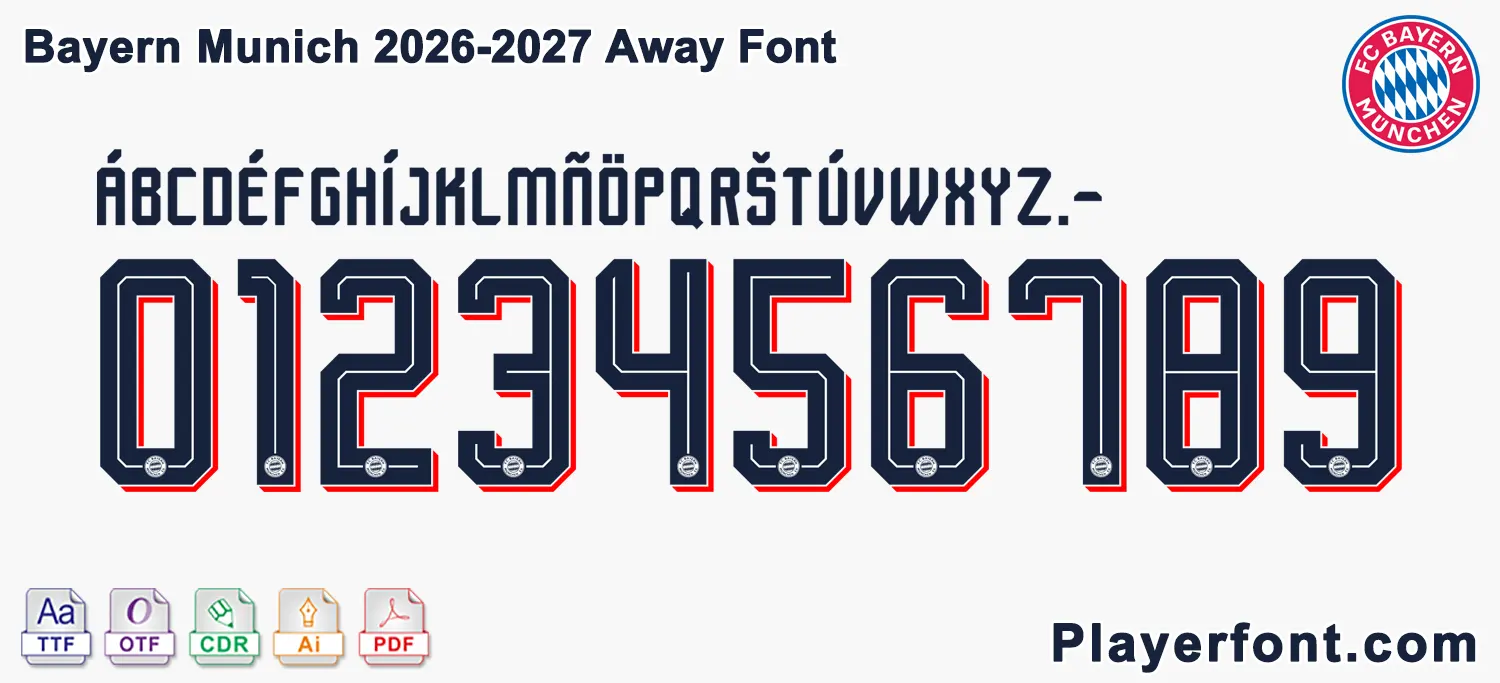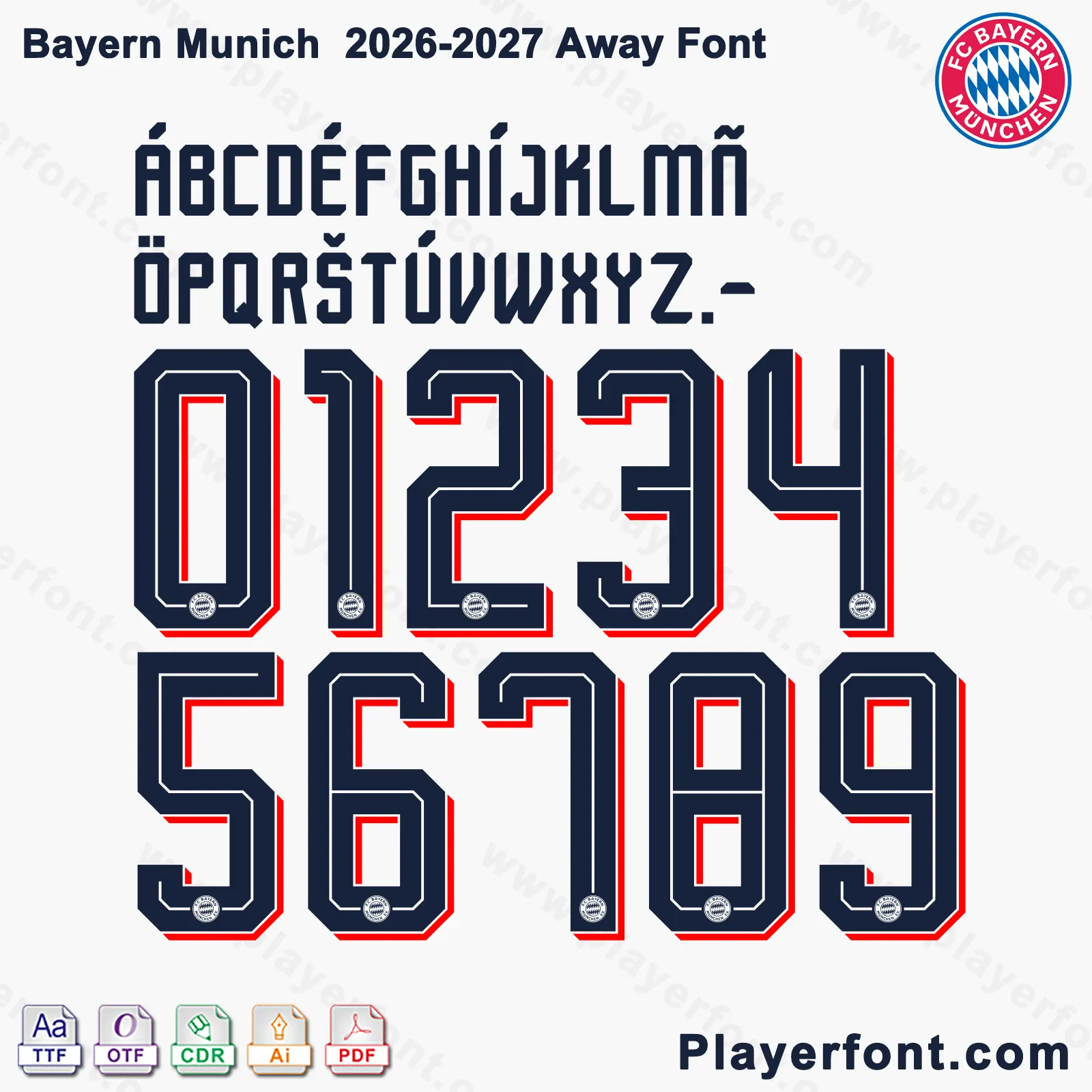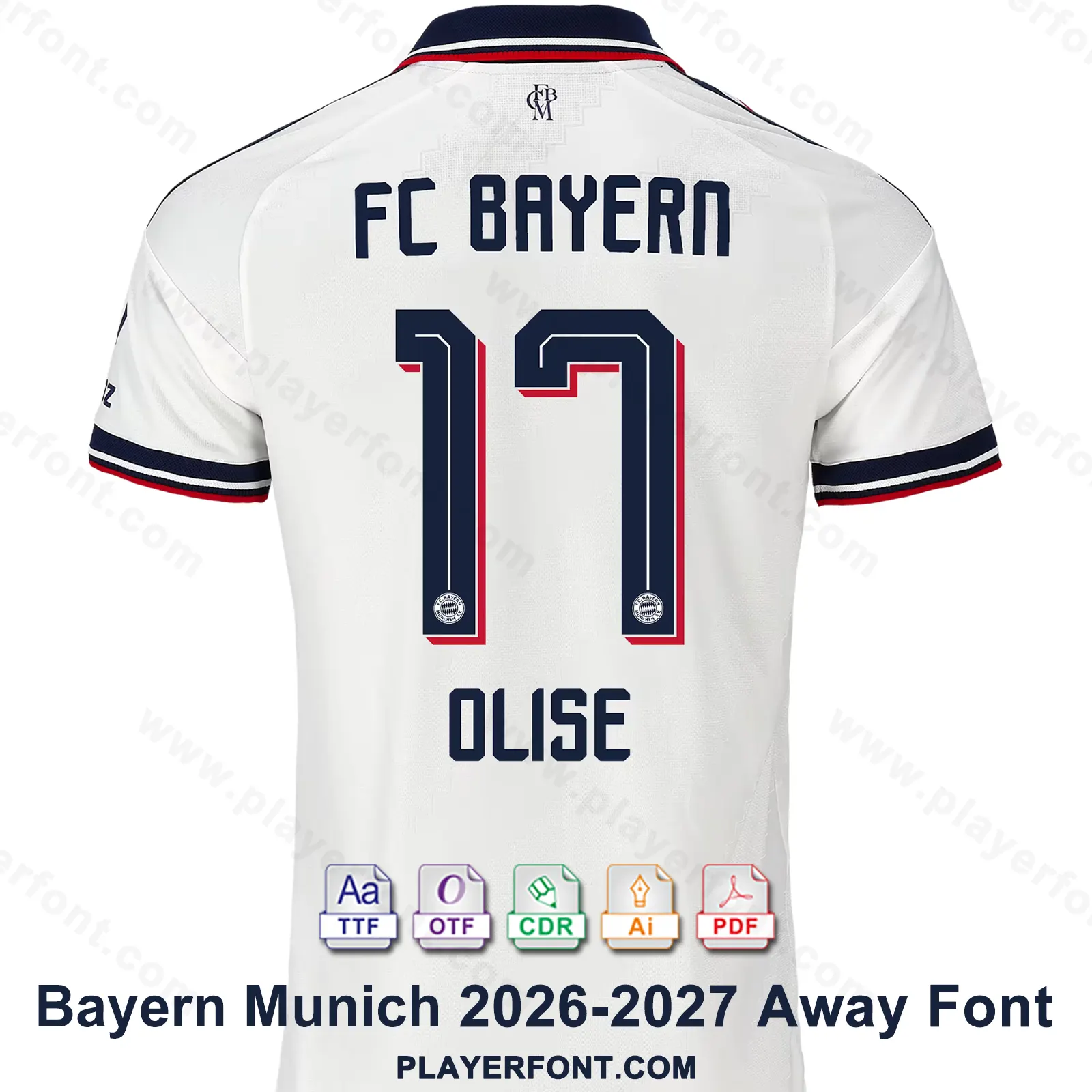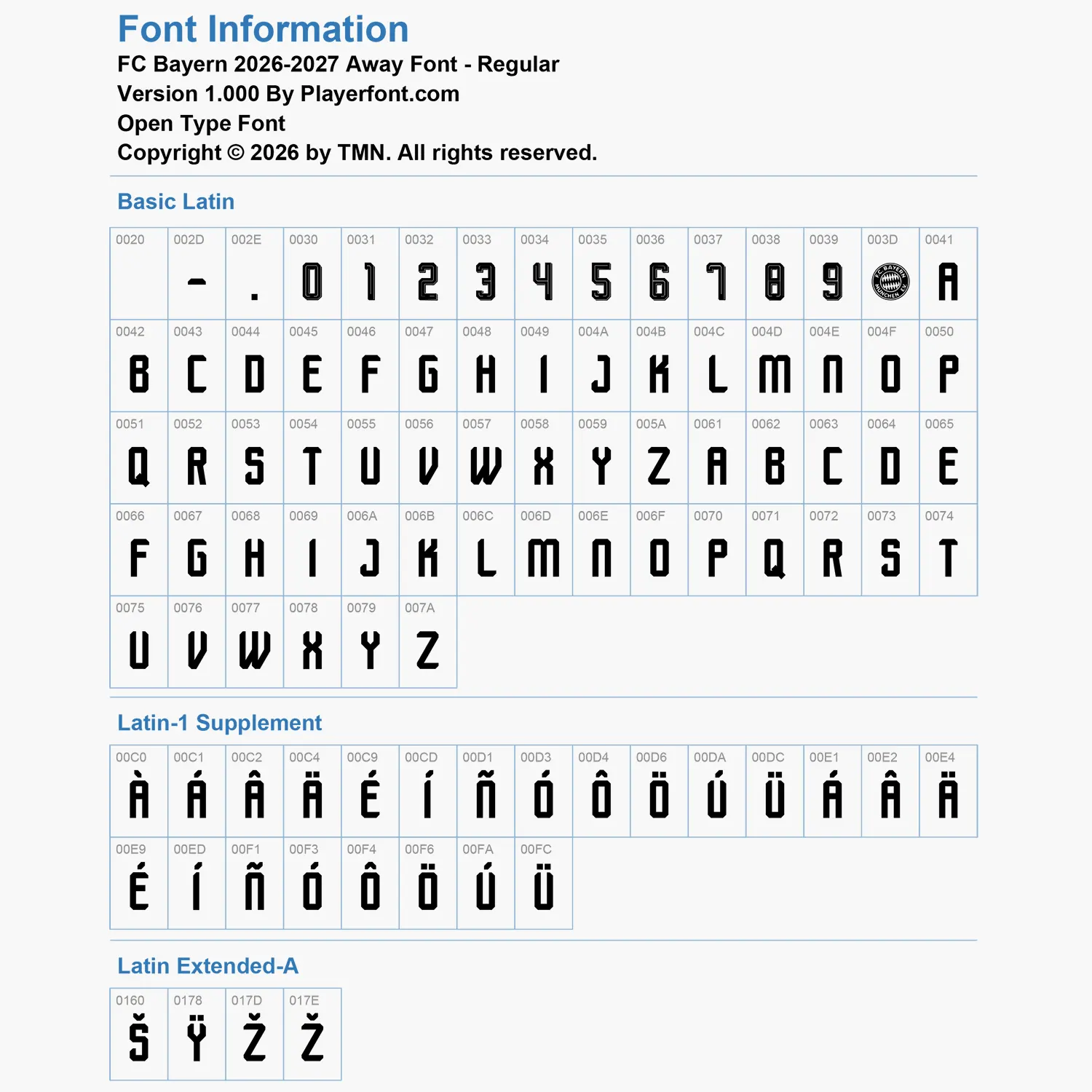
Elevate your sports jersey mockups, football custom graphics, and vector apparel printing projects with the high-quality FC Bayern Munich 2026-2027 Away Font Download. Masterfully engineered by Playerfont.com, this high-performance typography set replicates the official-style numbers and distinct lettering featured on the pitch for Bayern Munich’s away fixtures.
Key Typography Features & Character List:
- Modern Technical Block Layout: Contains a bold, futuristic block uppercase character set with stylized corner cuts, numbers (0-9), hyphens, and periods.
- Advanced International Accent Support: Includes an expansive set of diacritics spanning Latin-1 Supplement and Latin Extended-A (such as À, Á, Â, Ä, É, Í, Ñ, Ó, Ô, Ö, Ú, Ü, Š, and Ž) ensuring flawless rendering for global football stars and German naming requirements (such as Olise, Müller, etc.).
- Authentic Visual Details: The dark navy jersey numbers feature a thin white central inline stripe, a striking vibrant red drop-shadow 3D offset effect, and the official FC Bayern München club crest outline subtly embedded at the base of each digit.
| Design Feature | Dark Navy with White Center Inline, Red Drop Shadow & Crest Base |